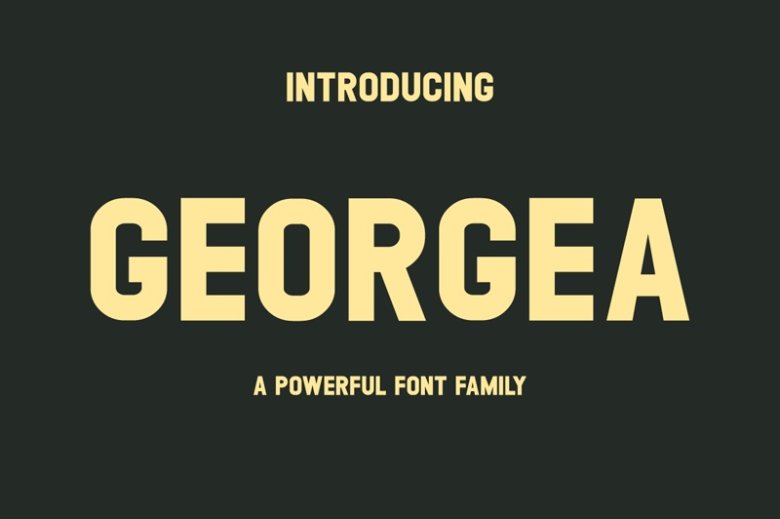
Georgea Font
Georgea is a high quality Sans Serif font that is designed by Fanastudio and is available for free download and personal use. The free version provides all uppercase and lowercase letters and a few special characters too.